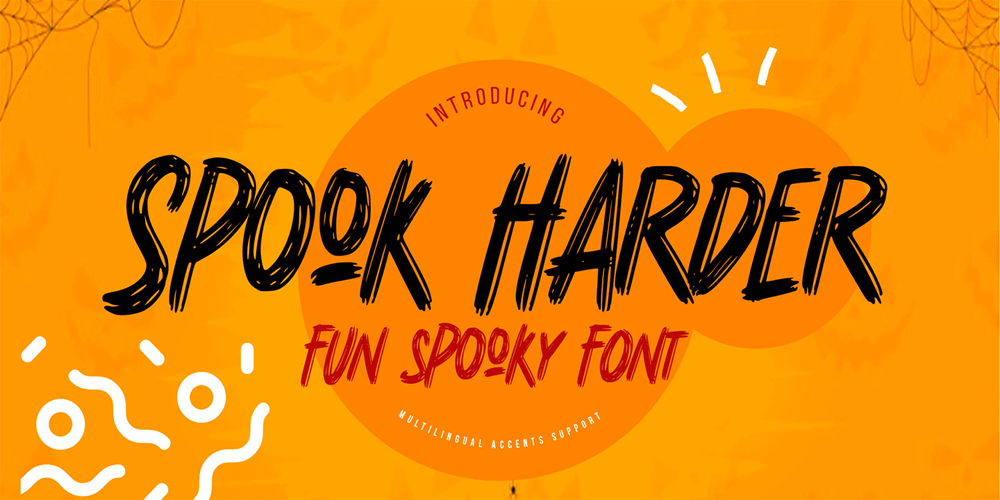
Spook Harder Font Family was designed by Abdul Malik Wisnu, Anang Fibriyanto and published by Gassstype. Spook Harder contains 1 styles and family package options. Hello Everyone, introduce our new product Font Spook Harder it is Fun Spooky Font .This is a Textured Natural Style and classy style with a clear style and dramatic movement.That is has charming, authentic and relaxed characteristic more natural look to your text. You can activate 3 Ligatures glyphs and 34 Alternate glyphs OpenType panel.